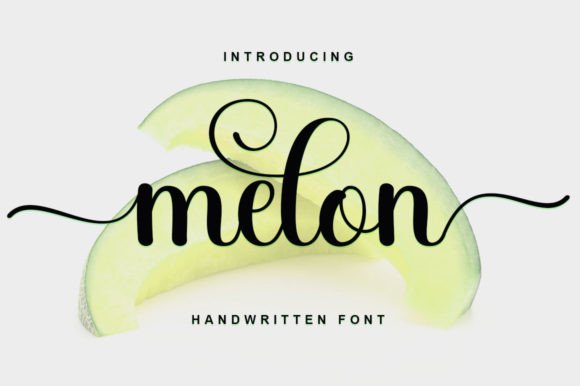
Unleash the power of Melon Script, a masterpiece crafted with elegance and grace, ready to transform your creative visions into captivating realities. This script font, born from the creative mind of madjack.font, is not just a collection of letters, but an artistic symphony that flows with the beauty of handwritten charm.
With Melon Script, you'll embark on a journey of words, where each letter dances across the page, carrying the weight of emotions and the essence of your message. Its varied baselines, smooth lines, and stunning alternatives create a visual symphony that commands attention and leaves a lasting impression.
Step into a world of visual intrigue, where Melon Script weaves its magic, effortlessly blending the classic elegance of calligraphy with a refreshing contemporary twist. Create logos that exude sophistication and style, branding materials that radiate personality, and social media posts that pop with vibrancy.
With Melon Script, the possibilities are endless. Design wedding invitations that capture the romance and joy of the occasion, craft business cards that leave a lasting impression, or create stunning artwork that reflects your unique style. Its versatility knows no bounds, allowing you to effortlessly elevate any project to the highest level of visual excellence.
Don't settle for ordinary fonts. Choose Melon Script, a font that speaks volumes, a font that captivates, a font that transforms. Let your creativity flourish as you immerse yourself in the world of Melon Script, where beauty and functionality intertwine to create a masterpiece that will leave you breathless.